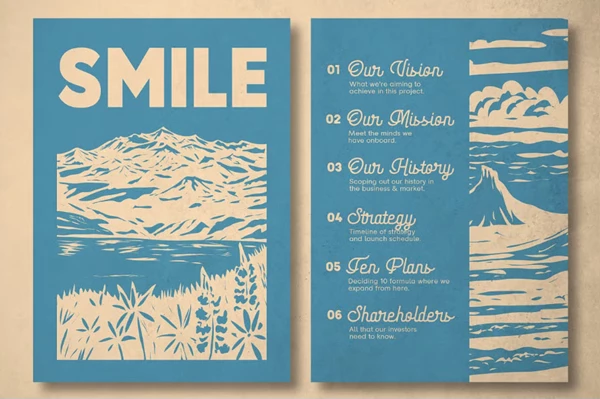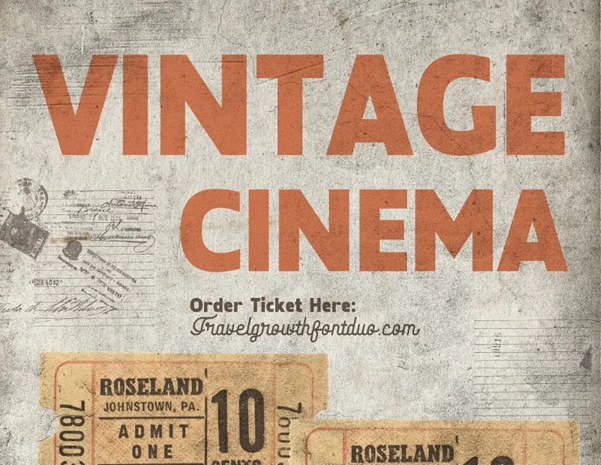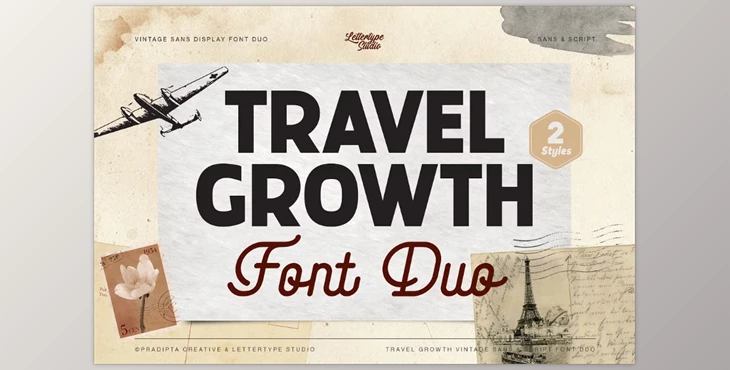
Travel Growth Vintage Font Duo:
Travel Growth Vintage Font Duo travels back to the 20th century to draw inspiration from travel posters featuring exemplary typeface legacies. It is a rounded script with a generous x-height infused with Art Nouveau finesse. This font duo captures a balance of versatility with readability while providing a bold, commanding sense of presence that caters to modern-day design. Ideal for elevating your branding, website, packaging, or editorial design, this font duo fits almost any creative endeavor without compromising on design elegance or impact.